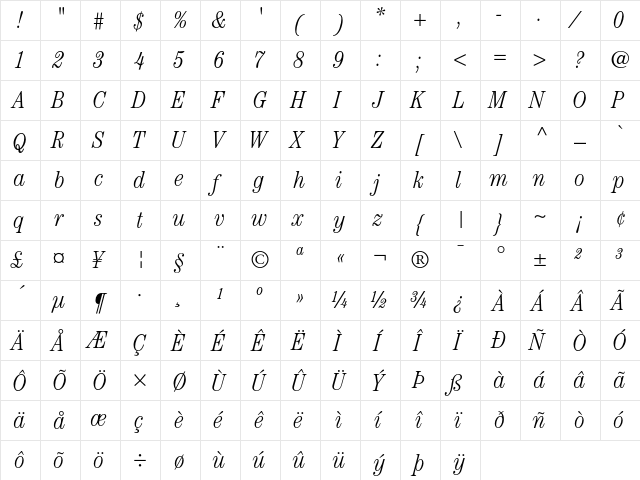
ITC Century Light Condensed Italic Font Preview
Design Context for ITC Century Typeface
ITC Century is a composed and adaptable typeface that performs quietly and consistently across a wide range of design contexts. The slanted form adds forward momentum and visual energy. The delicate stroke weight brings airiness and refinement to layouts. The condensed width makes it efficient for tight spaces without sacrificing legibility.
Pro Tip: Use ITC Century for emphasis, pull quotes, and subheadings where its slanted energy can add rhythm to the layout.